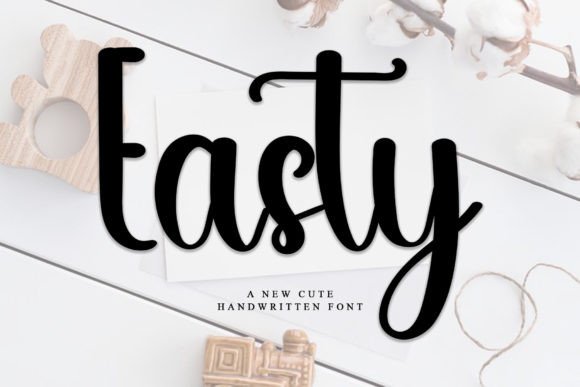
Welcome to the world of Eastey Font, the ultimate choice for a perfect Halloween sign! PiPi Creative presents this neat and beautiful handwritten font that adds an elegant touch to your favorite projects. Eastey Font is a script font that stands out with its distinct and timeless style, making it an excellent choice for creating spectacular designs.
The font is designed specifically for those who want to create a unique and eye-catching Halloween sign. With its bold and playful strokes, Eastey Font adds a touch of spooky elegance to your designs. The font family includes various styles, making it versatile and suitable for different design projects.
If you want to make your Halloween sign stand out, Eastey Font is the best choice. The font's unique style creates an emotional connection with the viewer, making it impossible to ignore. It's the perfect font to create a spooky atmosphere that will enchant your audience.
In conclusion, Eastey Font is the perfect choice for those who want to create a memorable Halloween sign. With its distinctive style and easy-to-use features, you can create stunning designs that will captivate your audience. So what are you waiting for? Download Eastey Font now and start creating your masterpiece!